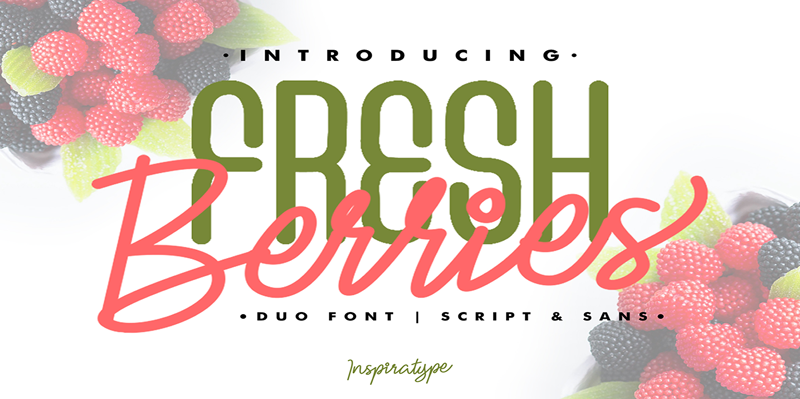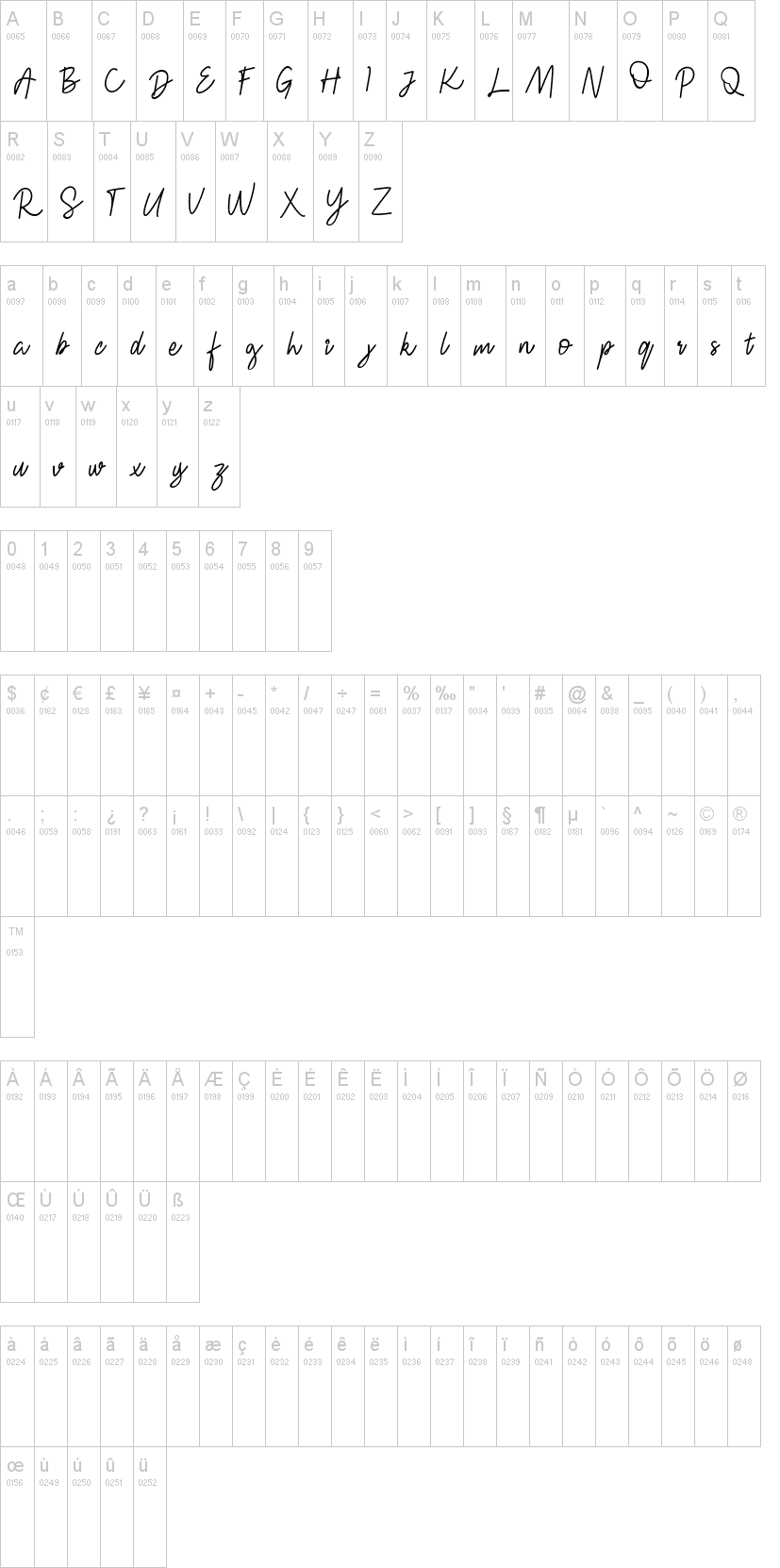
Fresh Berries Script
Note of the author"Fresh Berries" is a font display is made by hand, inspired by classic posters.
comes with uppercase, lowercase, numerals, punctuations and so many variations on each character include OpenType alternates, common ligatures and also additional swash to let you customize your designs. Perfect to use for Logotype, Letterhead, Poster, Apparel Design, Label and etc.